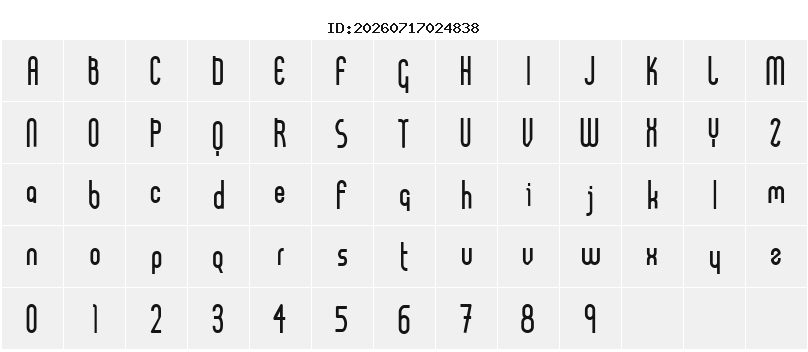
AB FatChic Preview
• Font Name: AB FatChic
• Font ID: Architecture Plain
• Full Font Name: AB FatChic
• PostScript Name: ABFatChic
• Character Count: 93
About AB FatChic.ttf
AB FatChic.ttf is a modern, elegant sans-serif font designed for ultimate readability and visual harmony. Perfect for branding, headlines, web design, and print materials.